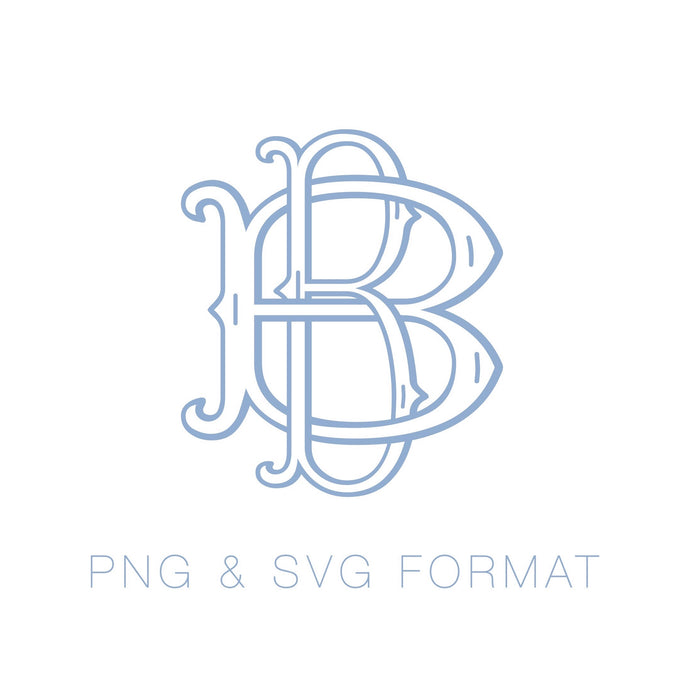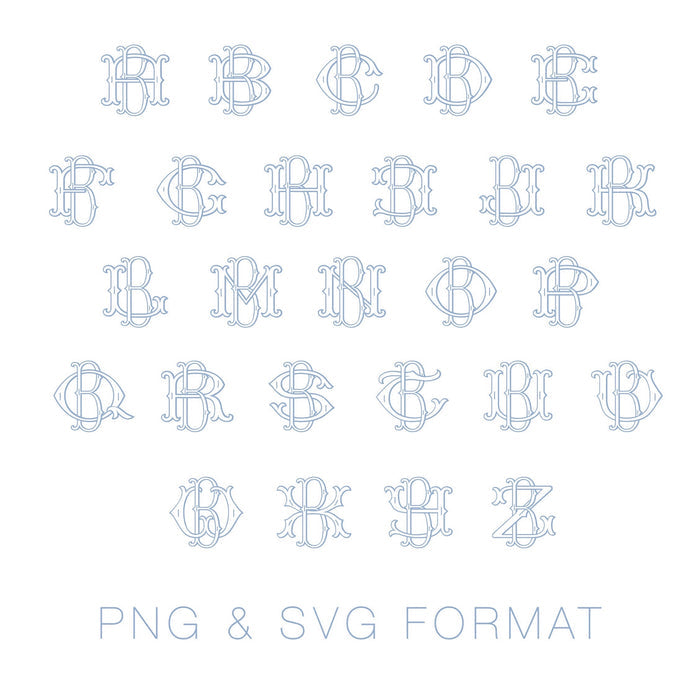
PNG SVG Two Type Fishtail Outline B Font
The Two Type Fishtail Outline PNG SVG Letter B Font includes the letter B combined interlocking with all 26 letters of the alphabet in both PNG and SVG format.